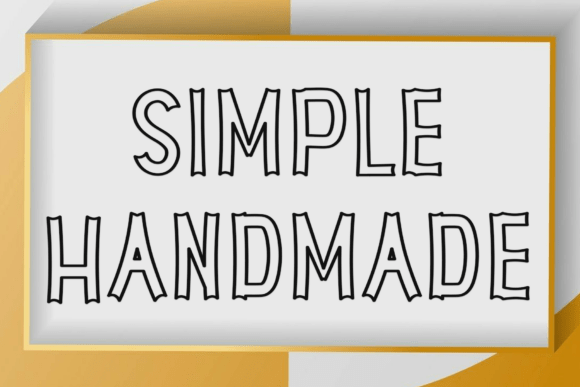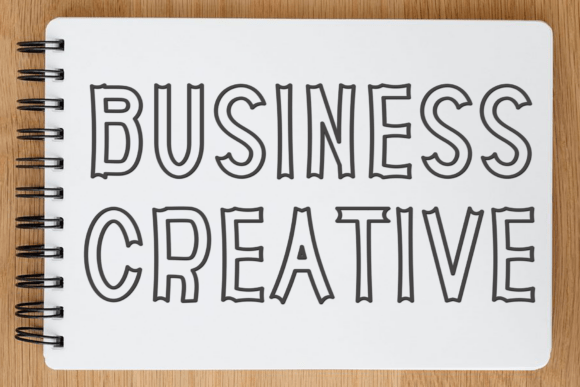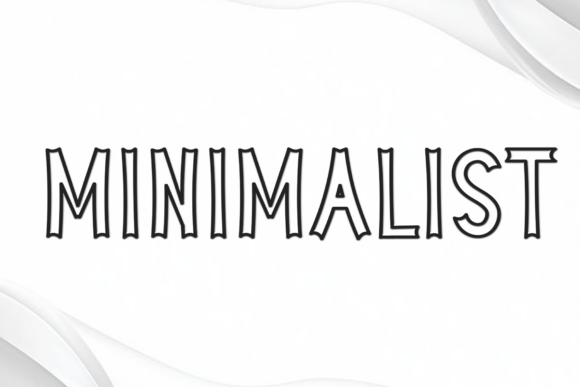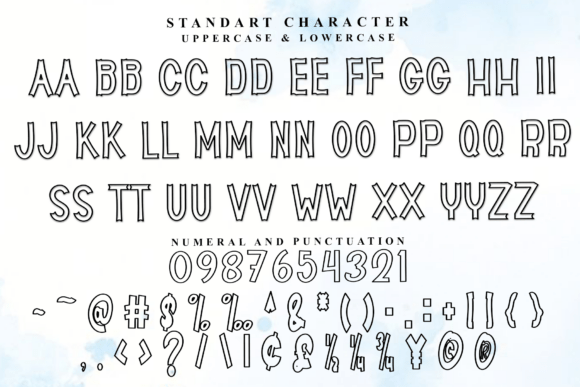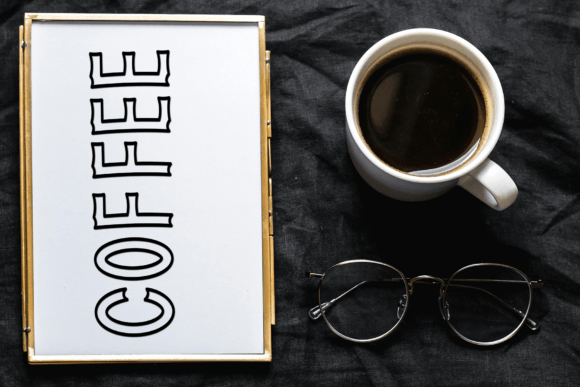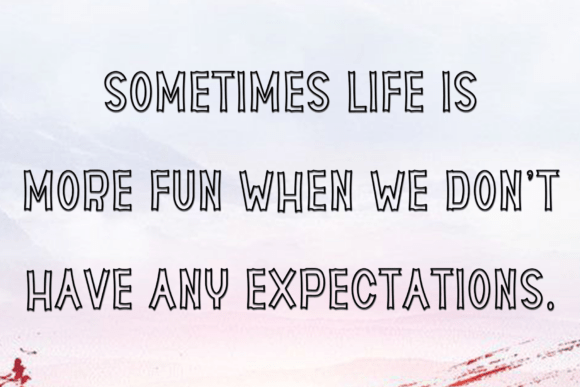
Enter the Ghost School Font, a delightful and merry typeface that embodies the essence of the holiday season. With its whimsical flair and decorative elements, this font adds a touch of enchantment to your designs, making it perfect for greeting cards, gift tags, and holiday-themed projects. Whether you’re a seasoned designer or a beginner, the Ghost School Font is a valuable addition to your typography toolkit.
Ghost School Font Key Features
- Unique Characteristics: The font features a unique, handwritten style with subtle imperfections and variations, giving it a personal and artistic touch.
Designer Review: Ghost School Font
Ghost School Font is an interesting addition to the world of fonts. The unique blend of modern and vintage elements ✨ makes it a great choice for designers looking to add some personality to their projects.
- Unique aesthetic that’s a great combination of modern and vintage elements
- Highly legible, making it suitable for a wide range of projects
- Supports a wide range of languages, making it a great choice for global projects
- May not be suitable for projects that require a more traditional or formal font
- Some users may find the font’s unique style too busy or distracting
Overall, I think Ghost School Font is a solid choice for designers who are looking to add some personality to their projects. While it may not be suitable for every project, it’s a great option for those who want to stand out from the crowd.
Practical Application Guide: Ghost School Font
Tip: Use the Ghost School Font for titles and headings to add a touch of elegance and sophistication to your design.
Tip: Use the Ghost School Font for creative projects, such as typography-based art or design elements.
Tip: Use the Ghost School Font for titles and headings to add a touch of professionalism to your presentation or document.
The Ghost School Font is ideal for:
Designing creative projects, such as typography-based art or design elements.
Adding a touch of elegance and sophistication to titles and headings.
Creating professional-looking presentations and documents.
Alternatives to Ghost School Font
Playfair Display is a luxurious and elegant serif font, perfect for creating high-end designs and branding. It features intricate details and refined lines, making it suitable for invitations, luxury packaging, and upscale advertising.
Compared to Ghost School Font, Playfair Display has a more refined and sophisticated feel, with a greater emphasis on elegance and luxury. While Ghost School Font is great for creative and quirky designs, Playfair Display excels at conveying high-end sophistication.
Great Vibes is a modern and stylish script font, ideal for creating dynamic and energetic designs. It features fluid lines and a playful feel, making it suitable for logos, advertising, and packaging.
Compared to Ghost School Font, Great Vibes has a more modern and dynamic feel, with a greater emphasis on energy and playfulness. While Ghost School Font is great for creative and quirky designs, Great Vibes excels at conveying a sense of excitement and dynamism.
Q: Can I use the Ghost School Font for digital signage or other high-resolution applications?
Yes, the Ghost School Font is suitable for high-resolution applications, including digital signage. It has been designed to be scalable and legible at a range of sizes and resolutions. However, it’s always a good idea to test the font in your specific application to ensure optimal results.